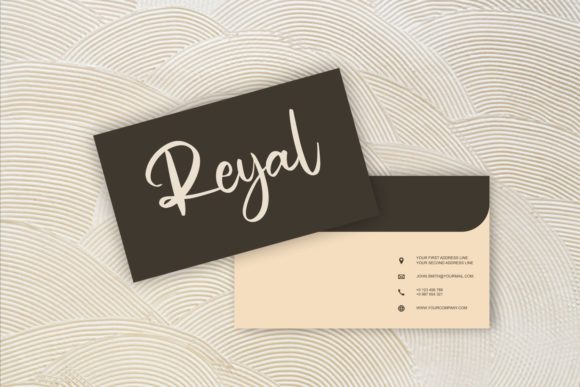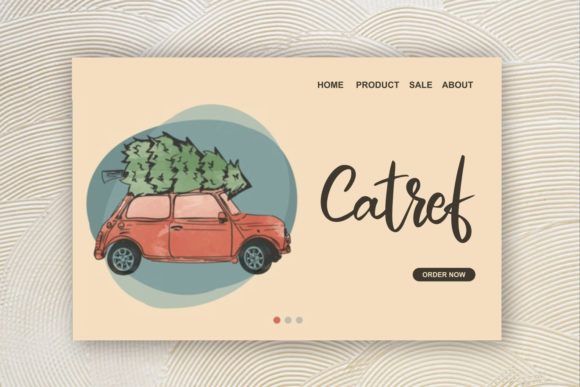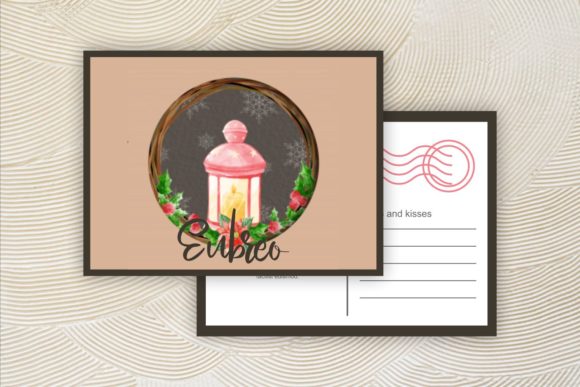
Introduction to Mosem Font
Mosem is a gorgeous script featuring a unique calligraphic style.
It will turn any design idea into a true standout The alternative characters were divided into several Open Type features such as Stylistic Sets, Stylistic Alternates, Contextual Alternate, swashes, and ligature.